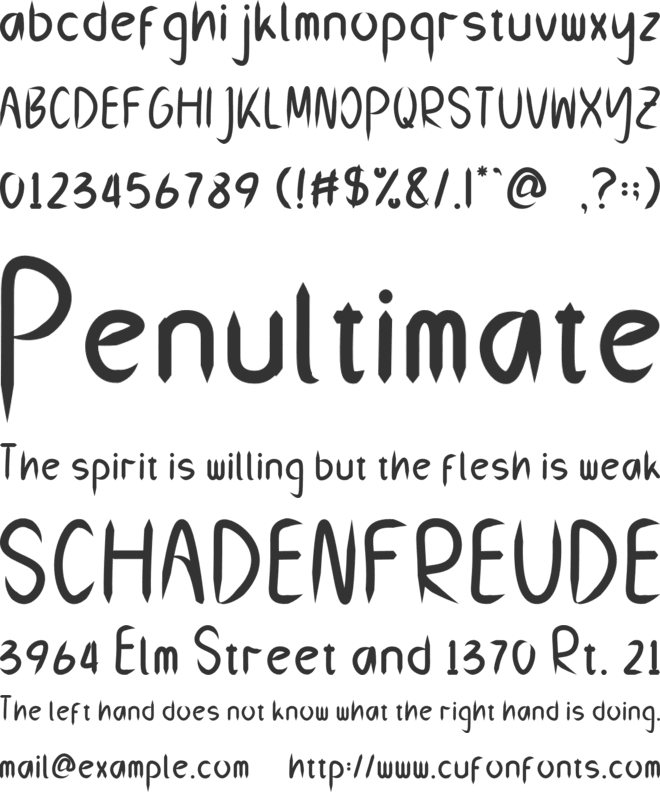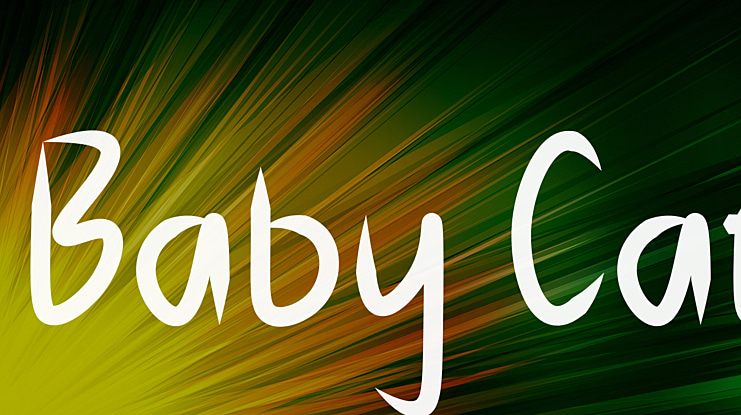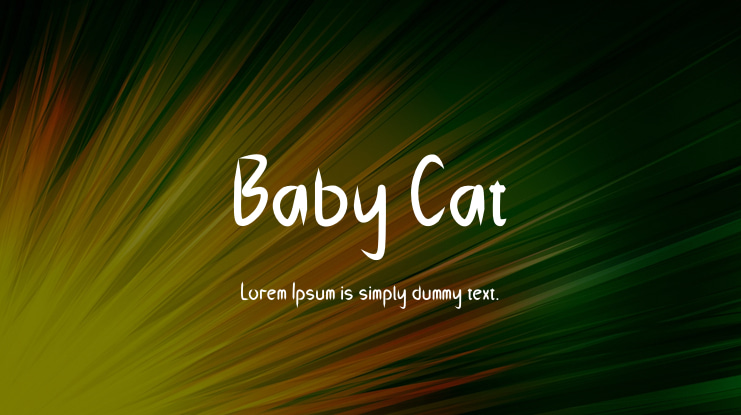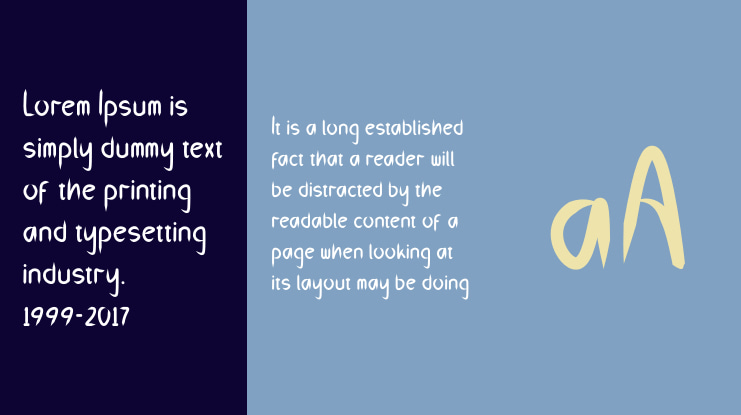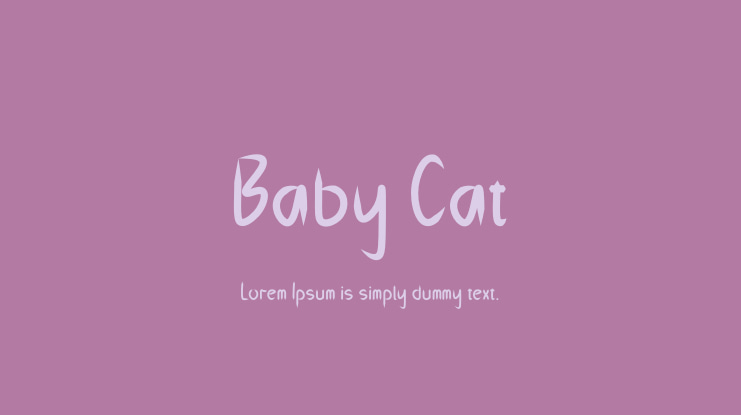
Baby Cat Font
Muhammad Nashrul Aziz
Baby Cat is a cool and trendy display font. Whether you’re looking for fonts for Instagram or for DIY projects, this font will turn any creative idea into a true piece of art!